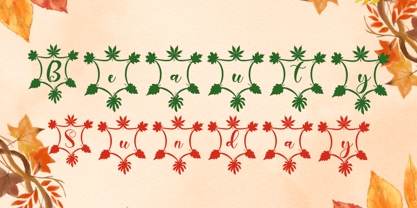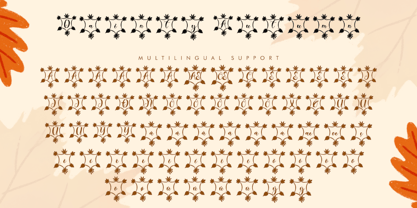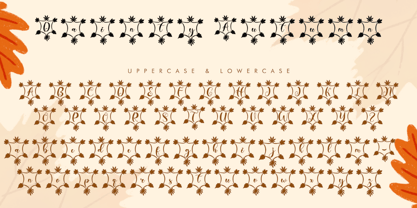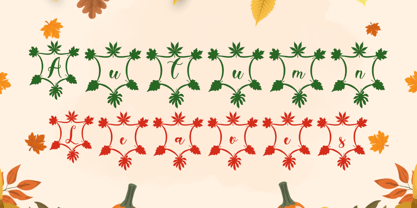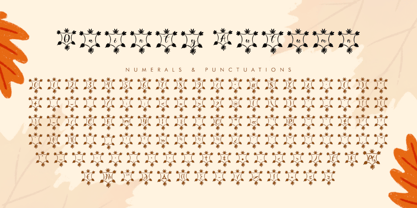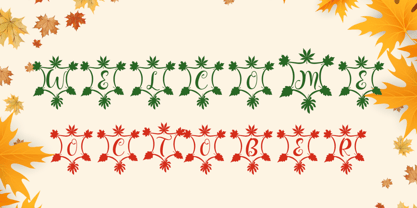
Dainty Autumn
by Yoga Letter
The Dainty Autumn Font Family was designed by Isroni Yoga Prasetya and published by Yoga Letter. Dainty Autumn contains 1 styles. More about this family
"Dainty Autumn" is a beautiful and elegant monogram font. It features uppercase and lowercase letters, numbers, punctuation, and multilingual support. Perfect for fall, banners, Christmas, branding, stickers, posters, prints, logos, sublimation, Valentine's Day, Thanksgiving, Halloween, spring, summer, back to school, invitations, gifts, logos, and more.
Designers: Isroni Yoga Prasetya
Foundry: Yoga Letter